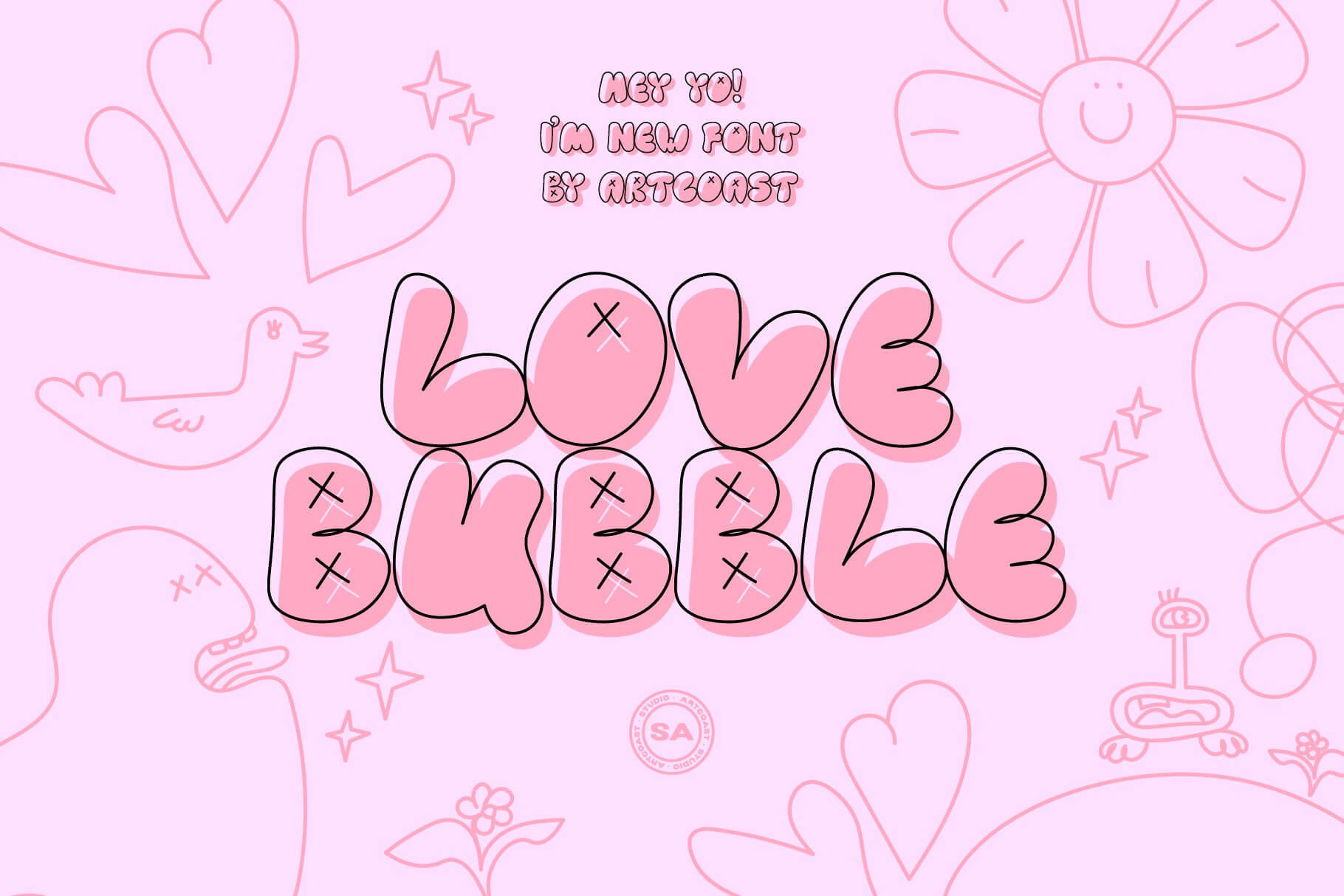
Love Bubble Font
We made a fun font for cartoons, headlines, promotional materials.. You can make postcards, create stickers, make quotes and sign pictures for social networks.